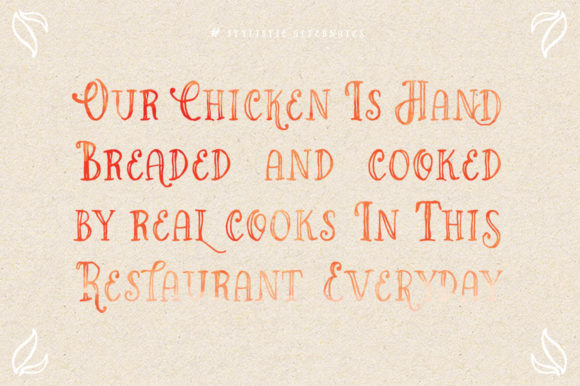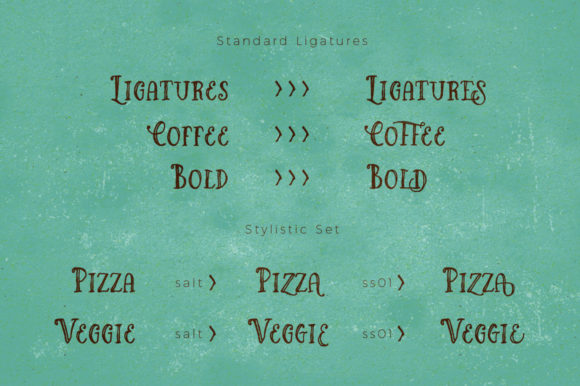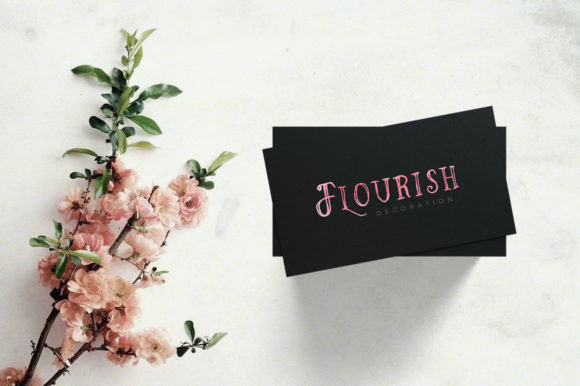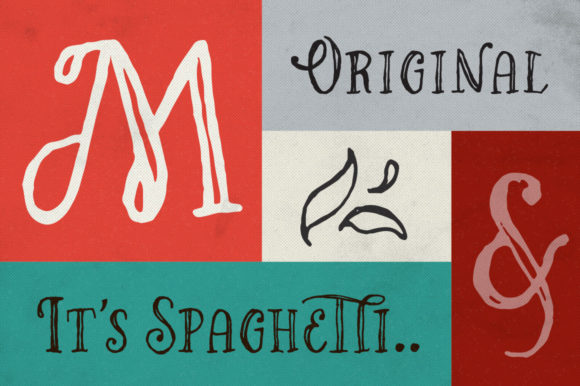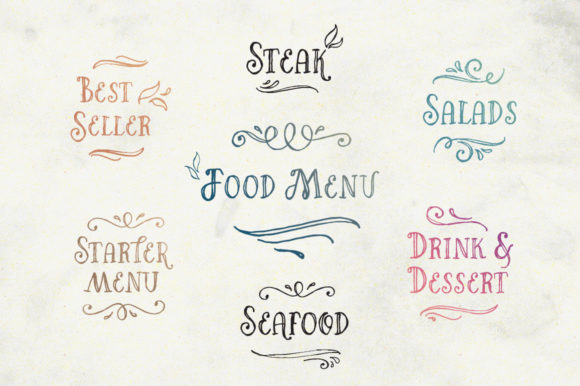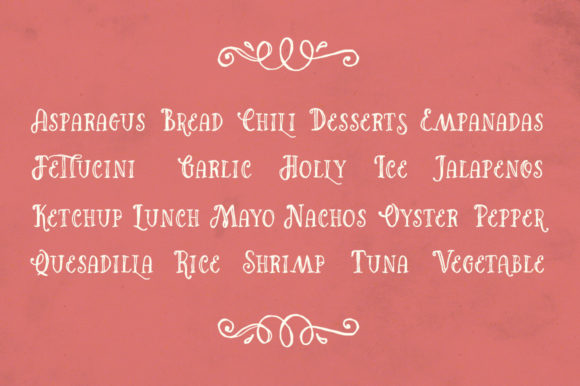
The Designer’s Delight: Uncovering the Charm of Fetani Font
I’ll never forget the time I was working on a branding project for a trendy boutique, and I just couldn’t seem to find the perfect font. The client wanted something that exuded elegance, yet had a playful touch. I scoured the internet, tried out countless fonts, but nothing seemed quite right. That was until I stumbled upon Fetani Font. ✨
It was love at first sight! Fetani’s elegant and classic handwritten style with a dash of modern flair won me over. I knew right then and there that it was the perfect fit for my client’s boutique. And, as I soon discovered, it’s an incredibly versatile font that can elevate a wide range of design projects.
What I Love About Fetani Font
- ✨ Elegant and classic handwritten style that’s perfect for adding a touch of sophistication to designs
- ✅ Extensive feature set including OpenType features, glyphs, and stylistic alternates
- 🎉 Playful and fun vibe that’s perfect for designs that need a bit of whimsy
- 📚 Suitable for a wide range of projects, from logos and branding to quotes, headlines, and more
While Fetani Font is an amazing addition to any design project, there are a few things to keep in mind. 🤔
- ⚠️ Some characters may require manual kerning to achieve optimal results
- ⚠️ Not all platforms support OpenType features, so be sure to check compatibility before designing
The Story Behind Fetani Font
While the origins of Fetani Font are shrouded in mystery, it’s clear that the designer was inspired by the world of elegant handwriting and modern typography. Imagine a designer who spent years studying the art of calligraphy, only to create a font that combines the best of traditional and digital design. 💫
The result is a font that’s both timeless and trendy, perfect for designers looking to add a touch of sophistication to their work.
| Font Name | Fetani Font |
| Author | RefolveDesign |
Q: What type of projects is Fetani Font best suited for?
A: Fetani Font is incredibly versatile and can be used for a wide range of projects, including logos, branding, quotes, headlines, advertising, posters, book covers, prints, social media, merchandise, stationery, packaging, and more! 📚
Q: Does Fetani Font support OpenType features?
A: Yes, Fetani Font supports OpenType features, including glyphs and stylistic alternates. This allows for a high degree of customization and flexibility in your designs. 🎨
Q: Is Fetani Font easy to read?
A: Yes, Fetani Font is designed to be elegant and easy to read, making it perfect for body text, headlines, and more. 📖